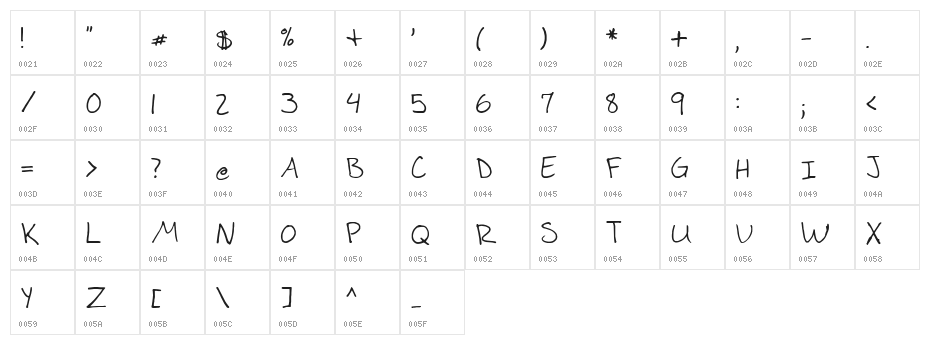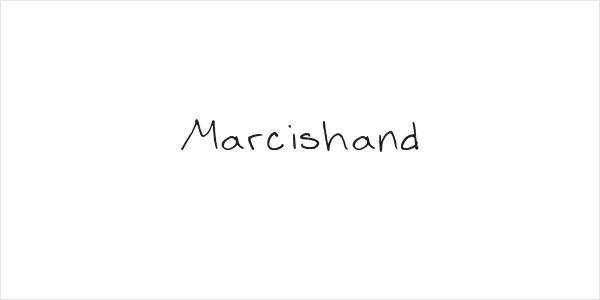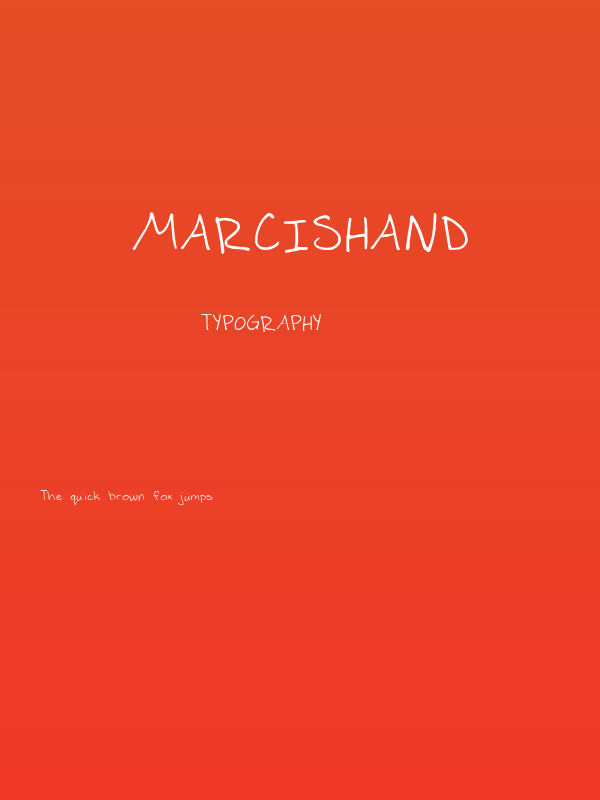
Marcishand Font
| Общий стиль | Casual, Playful |
| Область применения | Headlines, Informal text, Creative projects |
| Рекомендуемые проекты | Ideal for invitations, greeting cards, casual branding, and creative projects requiring a personal touch. |